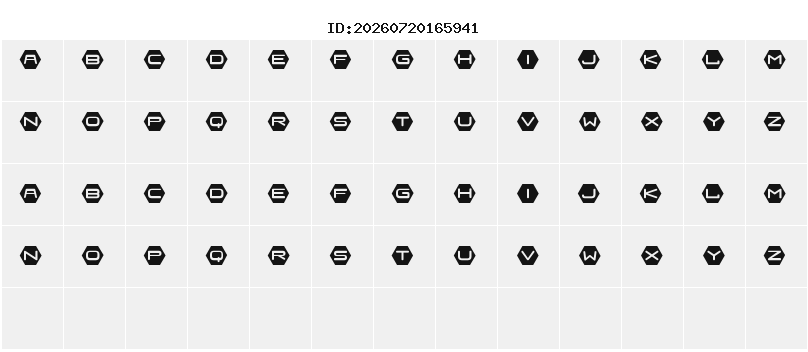
Fraulein Hex Preview
• Font Name: Fraulein Hex
• Full Font Name: Fraulein Hex
About Fraulein Hex.ttf
Fraulein Hex.ttf is a modern, elegant sans-serif font designed for ultimate readability and visual harmony. Perfect for branding, headlines, web design, and print materials.